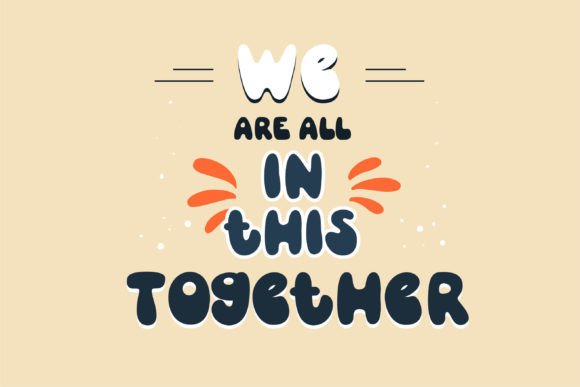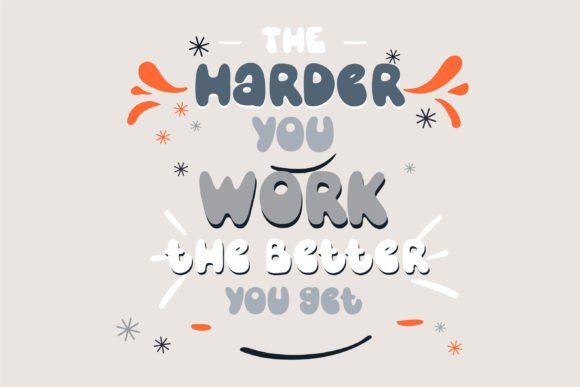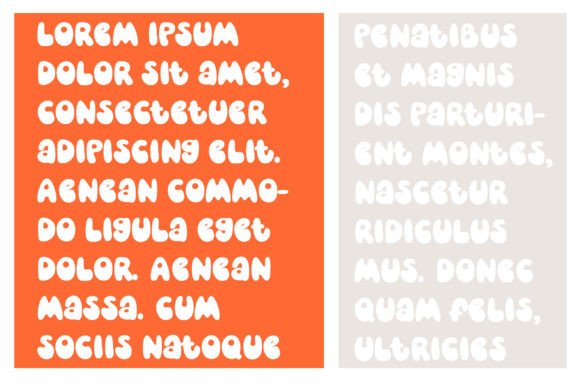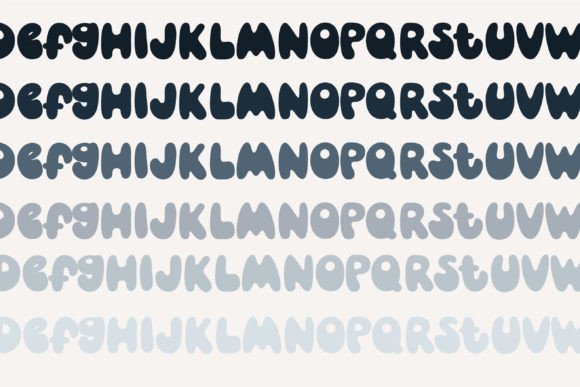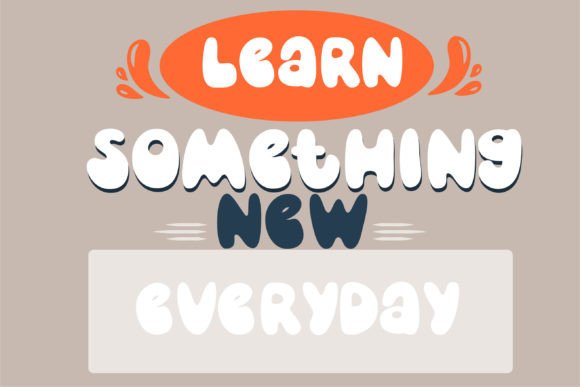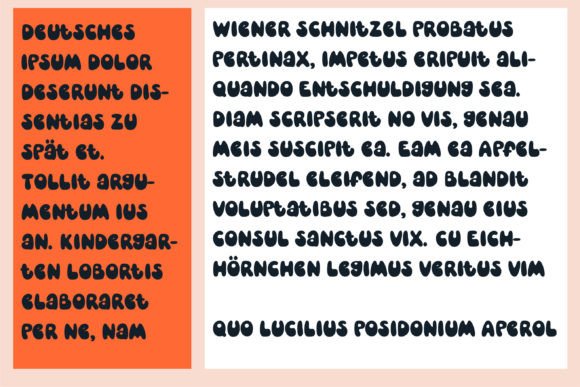
Introduction to Hippy Font
You’re in the middle of a creative project, and you need the perfect font to give it that extra oomph. You’re scrolling through your design resources, searching for something that screams fun, retro, and totally groovy. And then, it hits you – the Hippy Font. Its rounded edges and playful vibe are like a breath of fresh air, transporting you back to the carefree days of the 1960s.
As a designer, you know how valuable it is to have a reliable design resource like Hippy Font at your fingertips. With its high-quality design and versatility, it’s the perfect addition to any project. Whether you’re working on a poster, a flyer, or even a logo, Hippy Font is sure to add a touch of whimsy and charm. And with its transparent background option, you can easily integrate it into any design.
Key Features of Hippy Font
- Unique, Hand-Drawn Design: Hippy Font features a distinctive, hand-drawn style that adds a touch of creativity to any project.
- High-Quality Design Resource: This font is designed to meet the highest standards of quality, making it a valuable addition to any design collection.
- Transparent Background: Hippy Font comes with a transparent background, allowing for seamless integration into any design project.
- High Resolution: This font is designed at a high resolution of 300 DPI, making it suitable for use in a variety of creative projects, from print to digital media.
- Perfect for Creative Projects: Hippy Font is ideal for use in creative projects, such as branding, advertising, and editorial design, where a unique and eye-catching font is required.
Honest Review: Hippy Font
As a designer, I’m always on the lookout for unique and high-quality design resources to elevate my creative projects. I recently came across the Hippy Font, and I’m excited to share my thoughts on it.
- ✨ The Hippy Font has a distinctive and quirky feel that’s perfect for adding a touch of personality to your design.
- ✨ The font is highly customizable, allowing you to easily adjust the size, color, and style to fit your design needs.
- ✨ The font is available with a transparent background, making it easy to use on complex designs.
- ⚠️ The font may not be suitable for formal or corporate designs, as its playful feel may come across as unprofessional.
- ⚠️ Some users may find the font’s irregularities and imperfections distracting, especially on text-heavy designs.
Overall, I think the Hippy Font is a great addition to any designer’s toolkit. While it may have some limitations, its unique character and high quality make it a valuable resource for creative projects.
Hippy Font
Hippy Font is a unique and versatile design resource perfect for creative projects. Its transparent background and high-quality design make it an ideal choice for various applications.
Tips for Getting the Most Out of Hippy Font
1. Experiment with different font sizes and colors to create a visually appealing design.
2. Use Hippy Font in combination with other design elements to add depth and interest to your project.
Hippy Font is perfect for various creative projects, including:
- Poster designs
When to use: Pacifico is suitable for high-end projects, such as luxury brands, fine art, or upscale events. It’s also great for creating a romantic atmosphere.
Comparison to Hippy Font: While Hippy Font is playful and fun, Pacifico is more refined and sophisticated. If you’re looking for a font that exudes elegance and sophistication, Pacifico is a better choice.
Great Vibes is a modern, handwritten font that’s perfect for creative projects that require a relaxed, casual feel. It’s great for social media graphics, blog posts, and any design where you want to convey a sense of friendliness.
What is the recommended resolution for using Hippy Font in high-quality designs?
For high-quality designs, we recommend using Hippy Font at a resolution of at least 300 DPI. This will ensure that the font looks crisp and clear, even when enlarged or used in large formats. Additionally, using a high-quality design resource like Hippy Font will help to ensure that your designs look professional and polished.